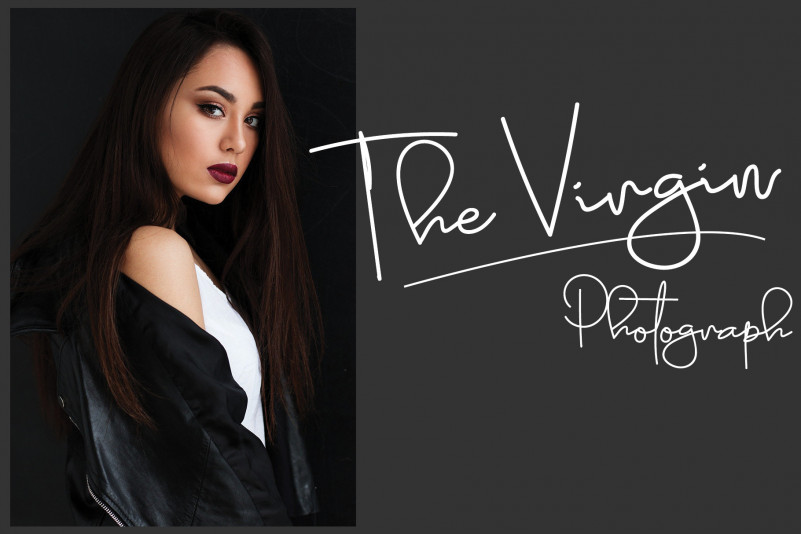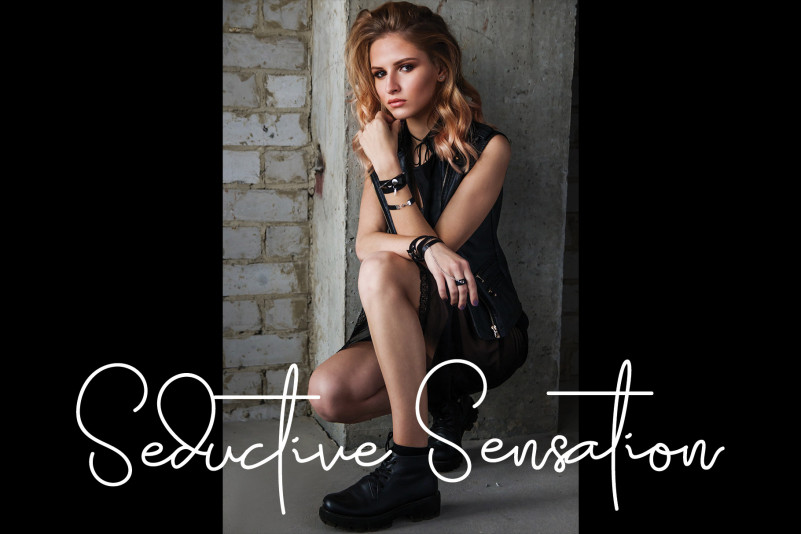
Graduation Day Font
Graduation Day Handwritten Font
This is a dazzling script font. This font is neatly crafted and highly detailed. Whatever the topic, this font will be a wonderful asset to your font library, as it has the potential to enhance any creation.